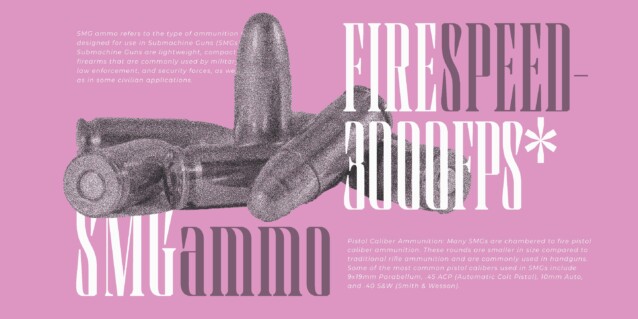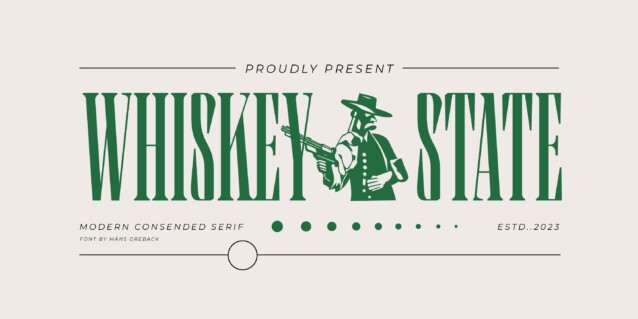
Whiskey State Font
Whiskey State Font is a refined and sleek typeface that exudes a modern yet classic charm. The font boasts an impressive height, stretching upwards with the same vigor as plumes of smoke rising from a smoldering campfire. Every letter stands upright and proud, imbued with the spirit of the Old West, yet exuding a contemporary coolness and innovativity. Its serifs aren’t just appendages; they are expressions, giving the typeface its unique, assertive character. The narrowness of Whiskey State is reminiscent of slender whisky bottles, and can tough and smoky while classy and elegant, just like the liquid from which it draws its name. Use characters { } < > [ ] to make symbols such as lions, eagles and revolvers. The font is built with advanced OpenType functionality and has a guaranteed top-notch quality, containing stylistic and contextual alternates, ligatures, and more features; all to give you full control and customizability. It has extensive lingual support, covering all Latin-based languages, from Northern Europe to South Africa, from America to South-East Asia. It contains all characters and symbols you’ll ever need, including all punctuation and numbers.